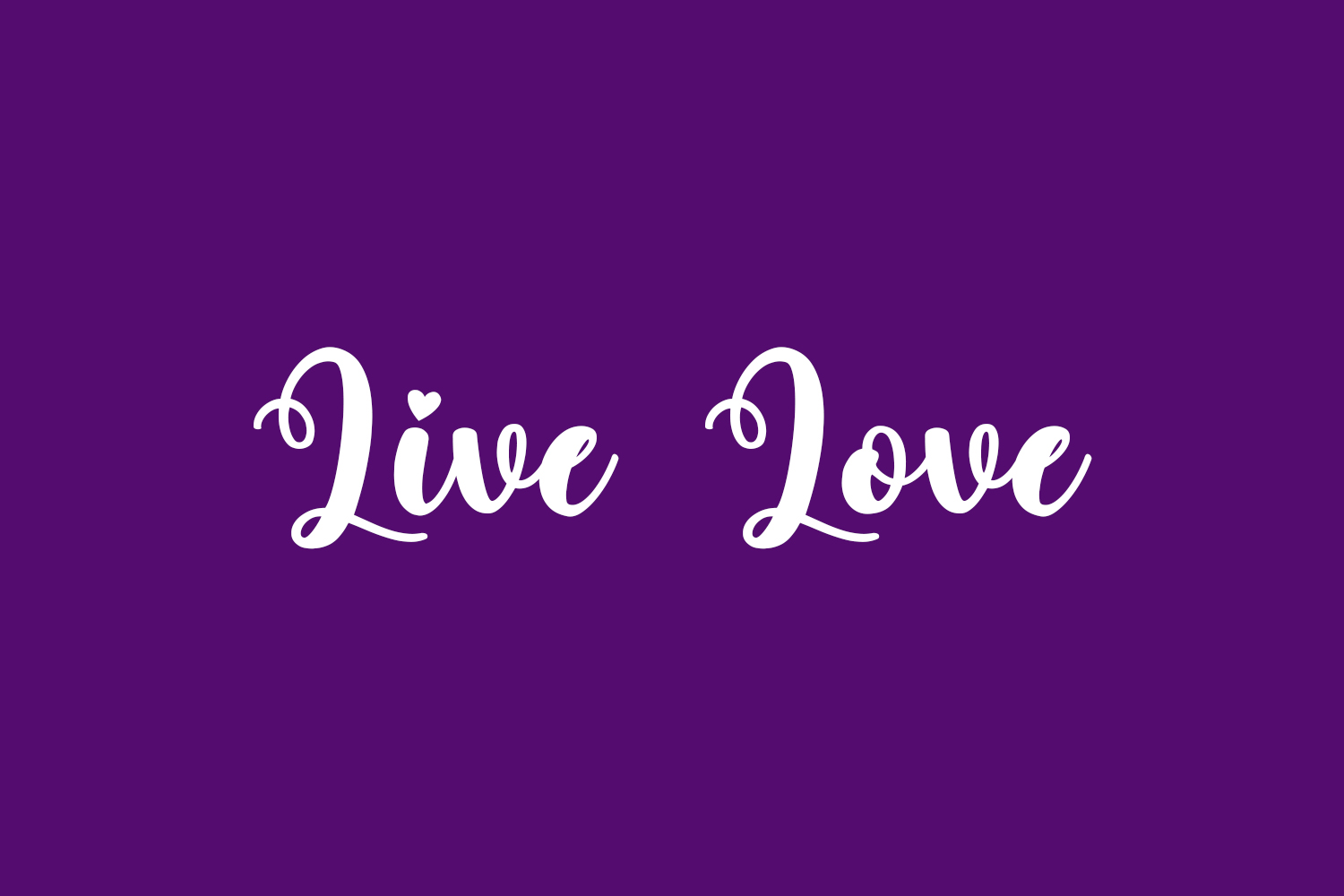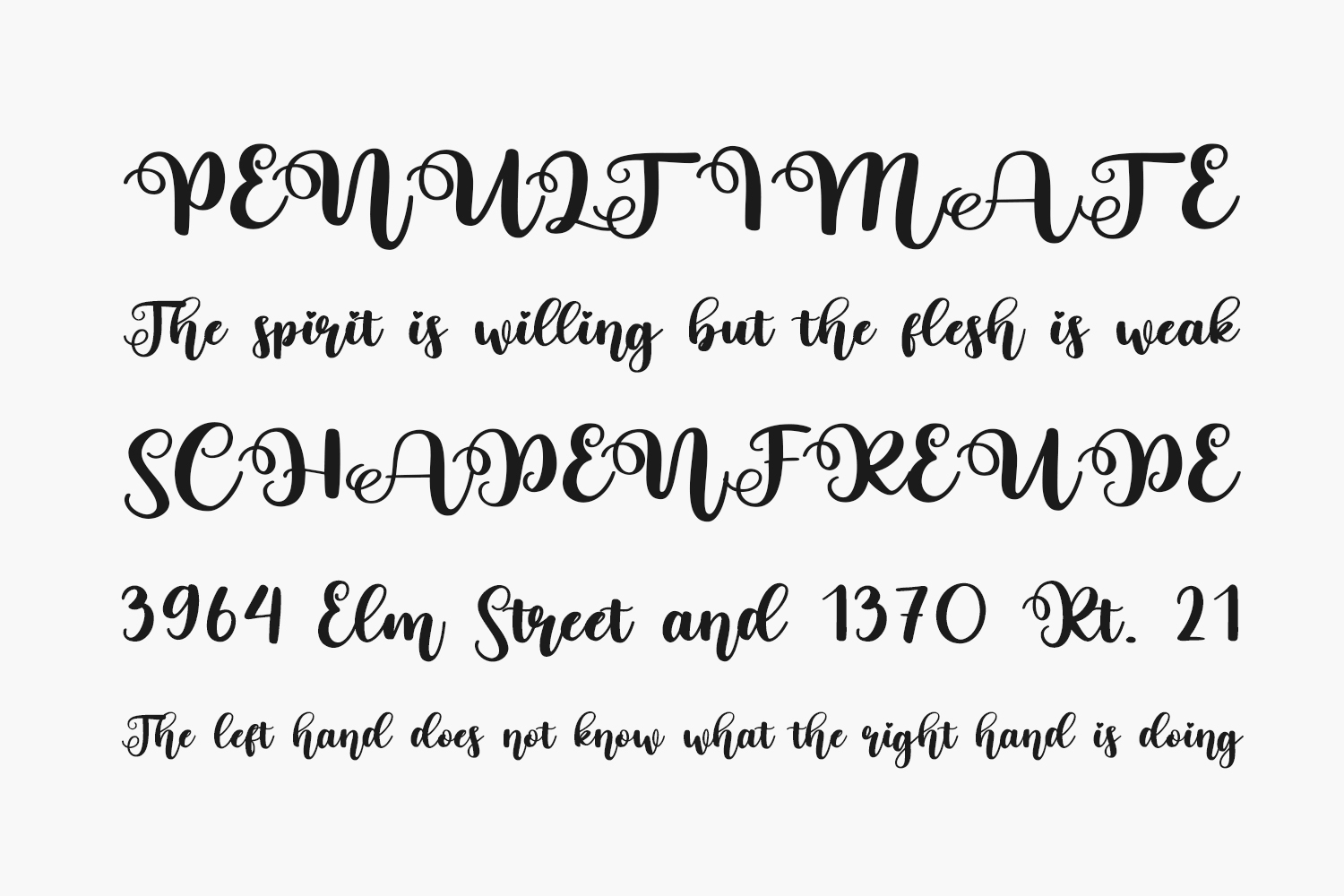
Live Love Free Font is a stunning handwritten font. Use it for any design projects that require a charming appearance. Live Love Free Font was designed by Bearytype and is free for personal use only. Please purchase the full version for commercial use.